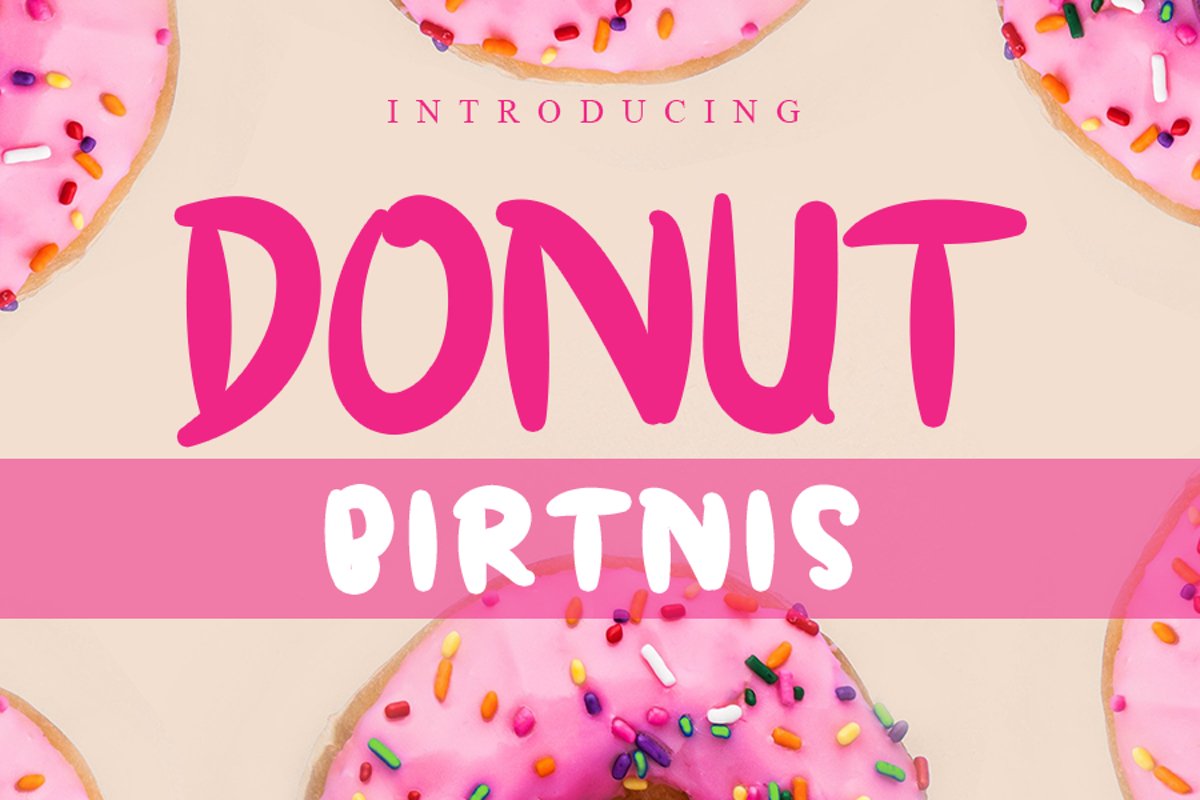
Donut Birtnis
DONUT BIRTNIS
Donut Birtnis is a cute and casual handwritten font with an incredibly friendly feel. Whether you’re looking for fonts for Instagram or calligraphy scripts for DIY projects, this font will turn any creative idea into a true piece of art!